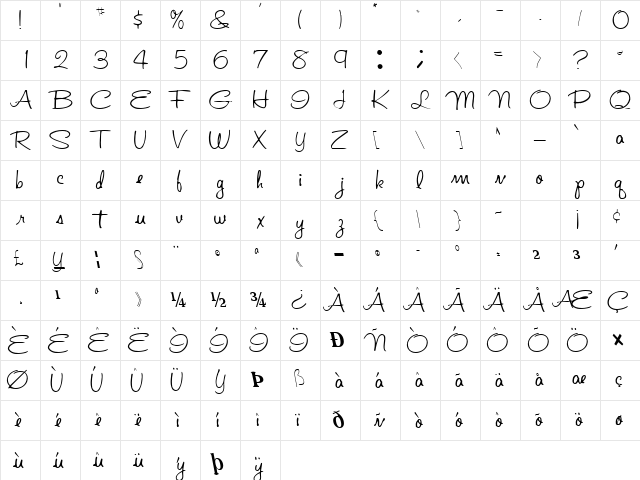
Door Regular
Door Family
Door Regular
Design Context for Door
Door is a composed and adaptable typeface that performs quietly and consistently across a wide range of design contexts.